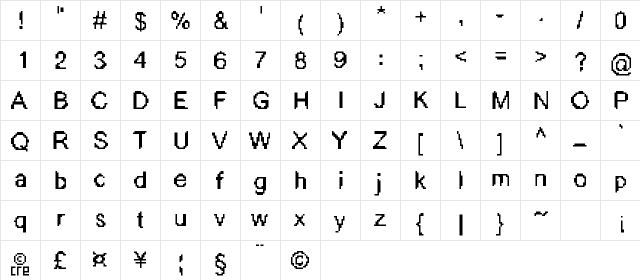
bitcre Medium Font Preview
bitcre Medium
Design Context for bitcre Typeface
bitcre offers clean, dependable letterforms without strong stylistic allegiance, making it a practical choice for designers who need flexibility.